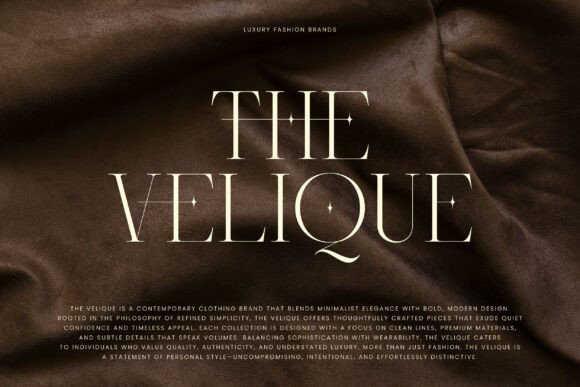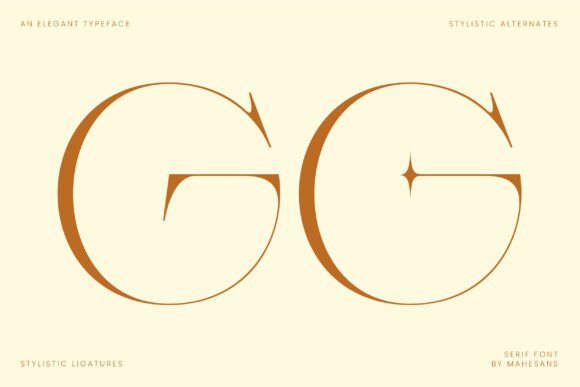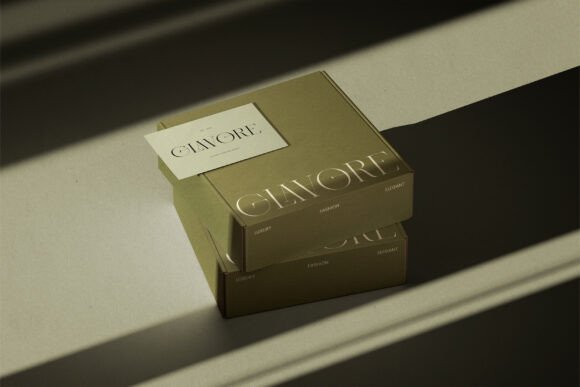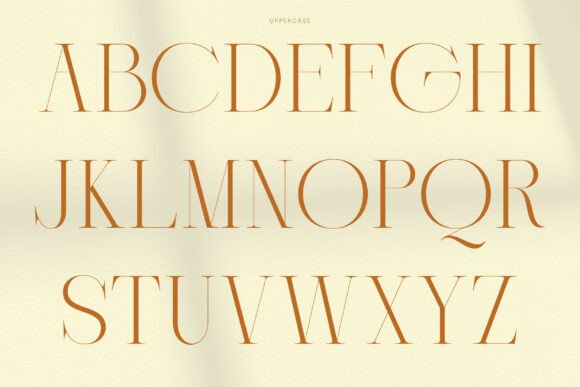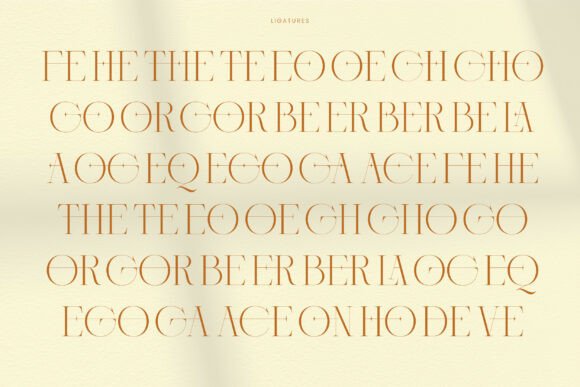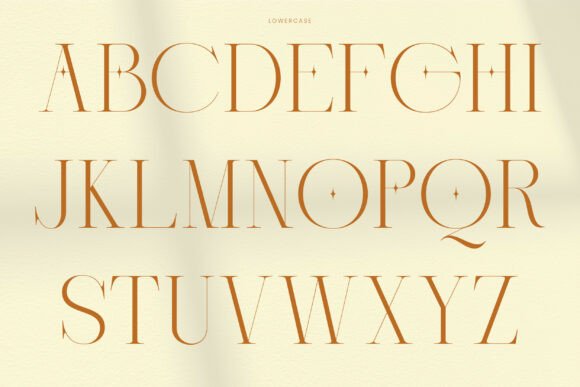
Introducing Glavore Font: Elevate Your Design with Timeless Elegance and Modern Sophistication
In the world of typography, a well-crafted font can make all the difference in elevating a brand’s visual identity. Glavore Font is a refined serif typeface that embodies the perfect blend of timeless elegance and modern sophistication. With its high contrast strokes, graceful curves, and distinctive ligatures, Glavore is designed to enhance branding, editorial design, and fashion-focused visuals.
Inspiration from Luxury Fashion Aesthetics
Glavore Font draws inspiration from the luxury fashion world, where style, sophistication, and attention to detail reign supreme. The font’s design is influenced by the aesthetics of high-end fashion brands, which often feature classic serif typography with a modern twist. This blend of traditional and contemporary elements makes Glavore an ideal choice for designers and crafters seeking to create visually stunning and luxurious designs.
Key Features of Glavore Font
So, what sets Glavore Font apart from other serif typefaces? Here are some of its key features:
- High Contrast Strokes: Glavore’s high contrast strokes create a sense of drama and elegance, making it perfect for headlines, titles, and logos.
- Graceful Curves: The font’s smooth, flowing curves add a touch of sophistication and refinement to any design.
- Distinctive Ligatures: Glavore’s ligatures provide a unique and stylish way to connect letters, adding an extra layer of elegance to your typography.
Perfect for Branding, Editorial Design, and Fashion-Focused Visuals
Glavore Font is an incredibly versatile typeface that can be used in a variety of design applications. Here are some of the areas where Glavore excels:
- Branding: Create a luxurious and sophisticated brand identity with Glavore’s elegant serif typography.
- Editorial Design: Use Glavore to add a touch of refinement and elegance to magazine headlines, articles, and editorials.
- Fashion-Focused Visuals: Glavore’s luxury aesthetic makes it perfect for fashion brands, boutiques, and designers seeking to create visually stunning packaging, logos, and marketing materials.
Why Choose Glavore Font?
With so many fonts available, why choose Glavore? Here are just a few reasons why Glavore stands out:
- Unique and Memorable: Glavore’s distinctive design ensures that your typography will stand out and be remembered.
- Timeless Elegance: Glavore’s classic serif design ensures that your typography will remain stylish and relevant for years to come.
- Modern Sophistication: The font’s modern twist adds a touch of sophistication and edge to your design.
Glavore Font is a refined serif typeface that offers a perfect blend of timeless elegance and modern sophistication. With its high contrast strokes, graceful curves, and distinctive ligatures, Glavore is designed to elevate branding, editorial design, and fashion-focused visuals. Whether you’re a designer, crafter, or simply someone looking to add a touch of luxury to your typography, Glavore is an excellent choice. So why wait? Discover the power of Glavore Font and take your design to the next level.